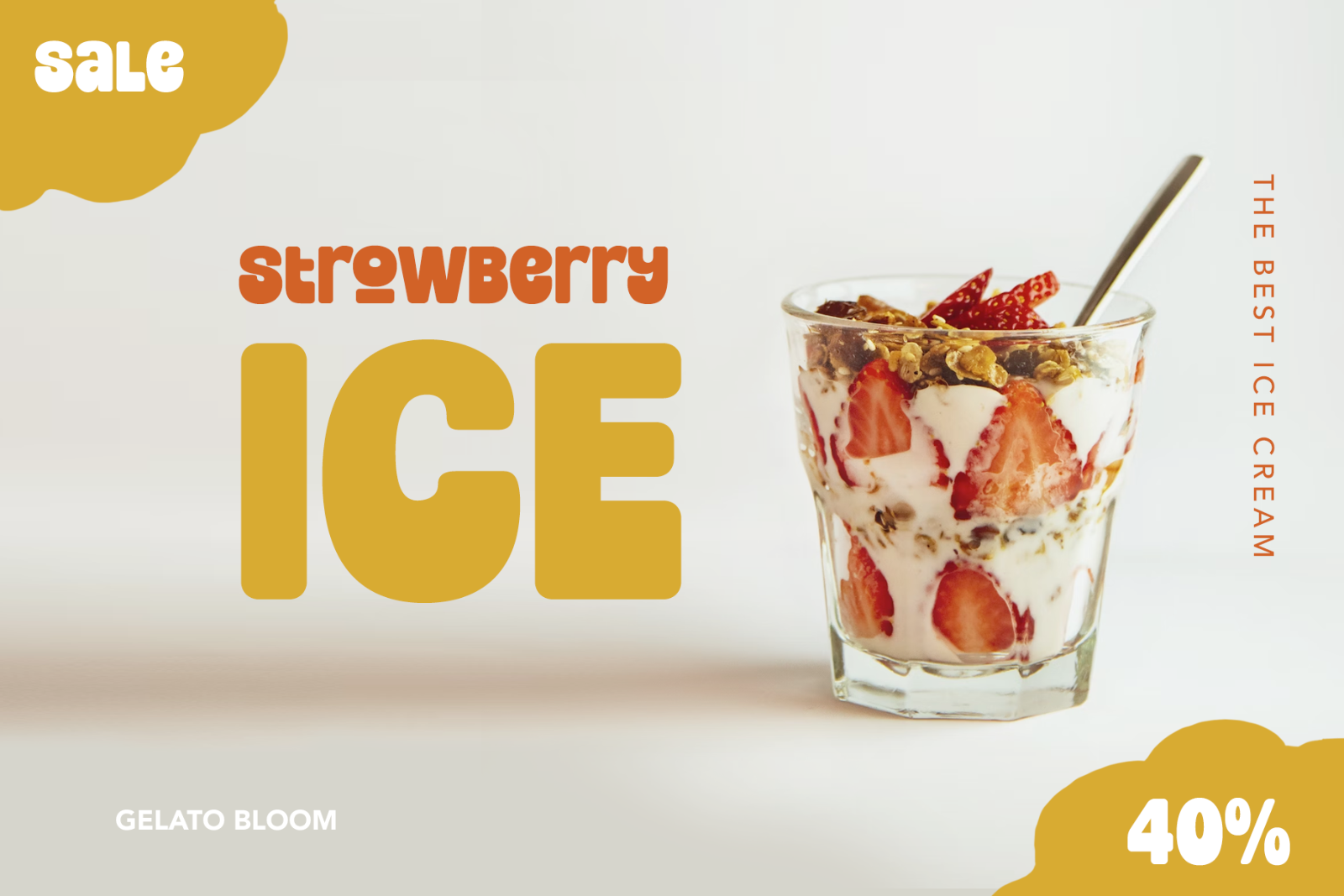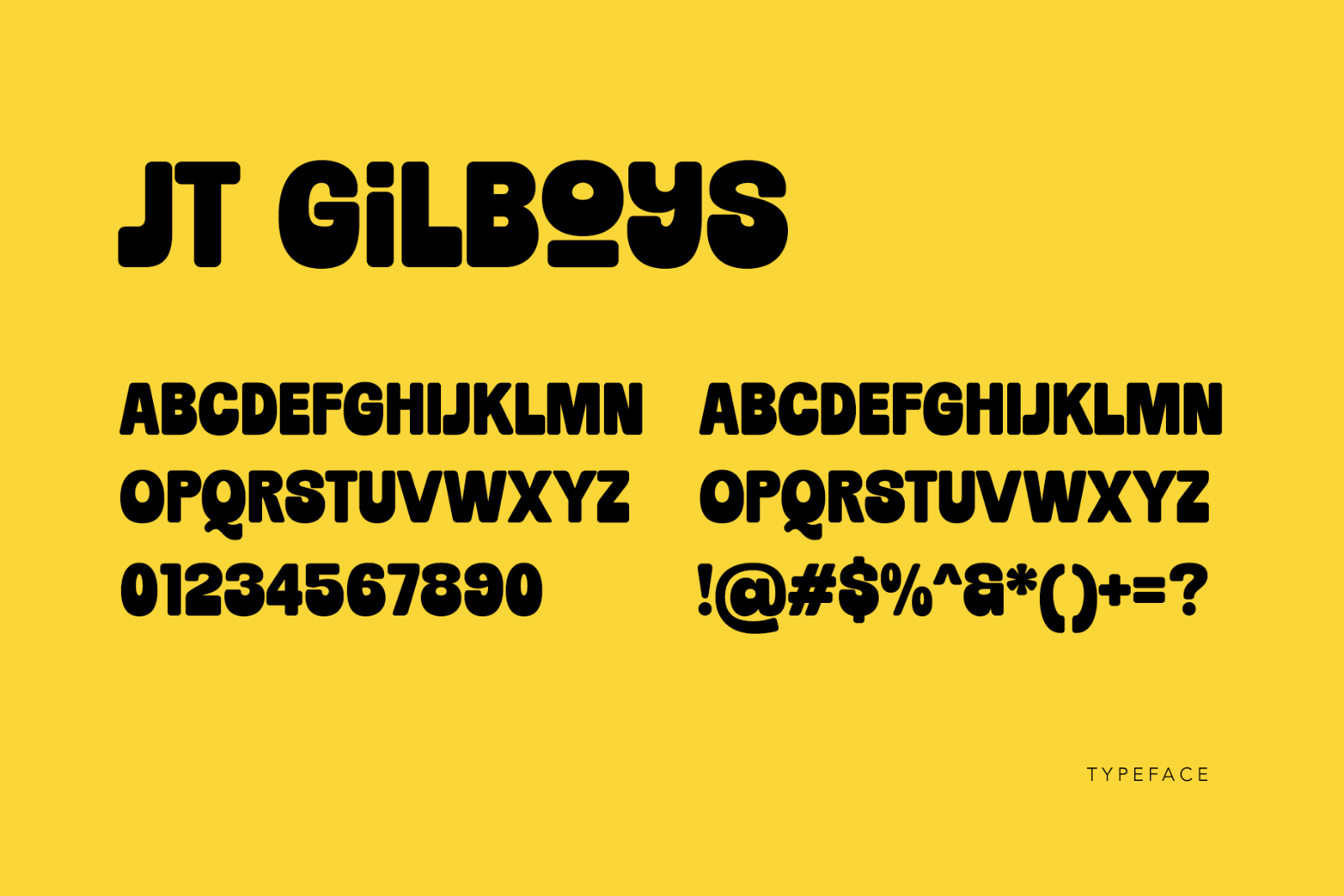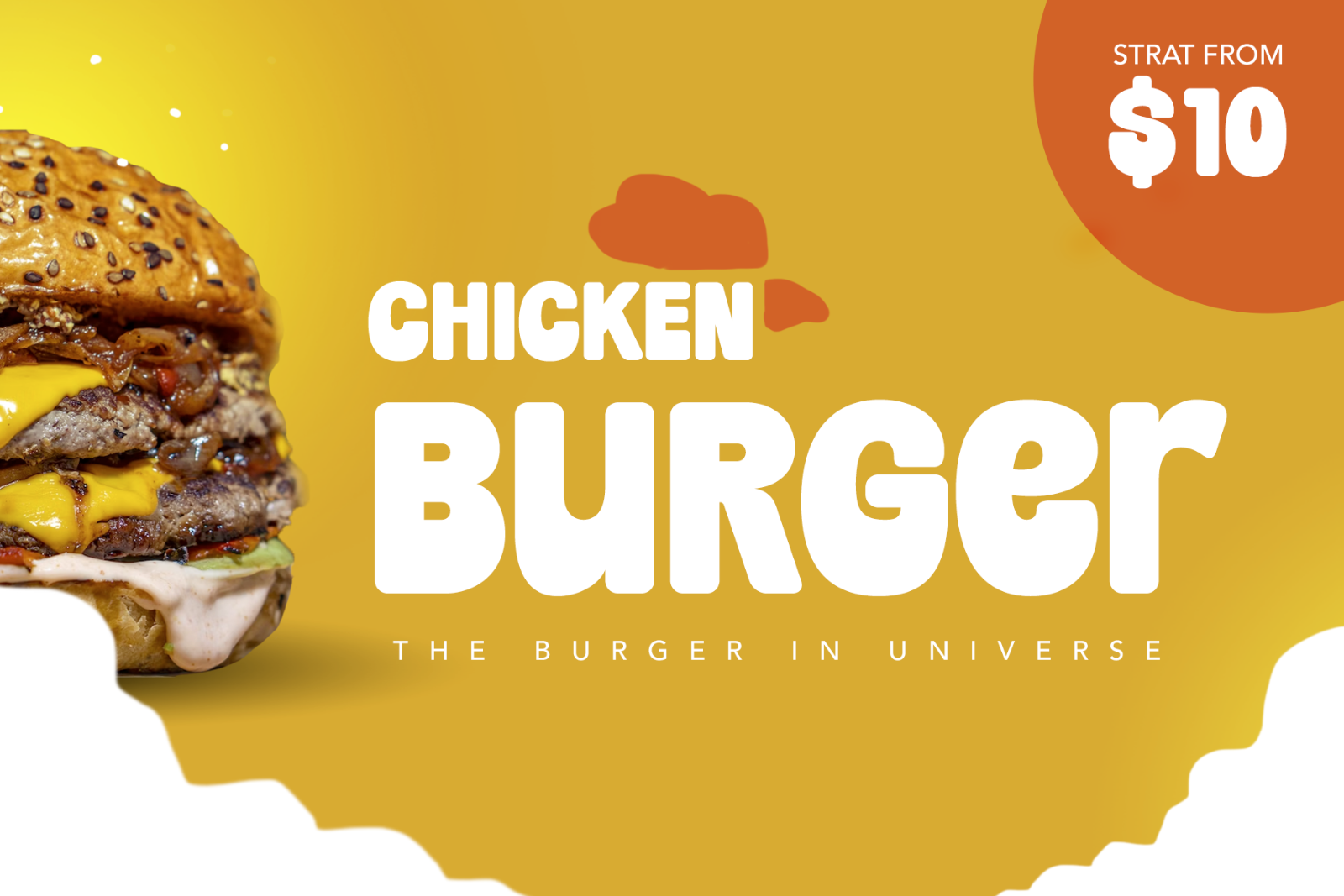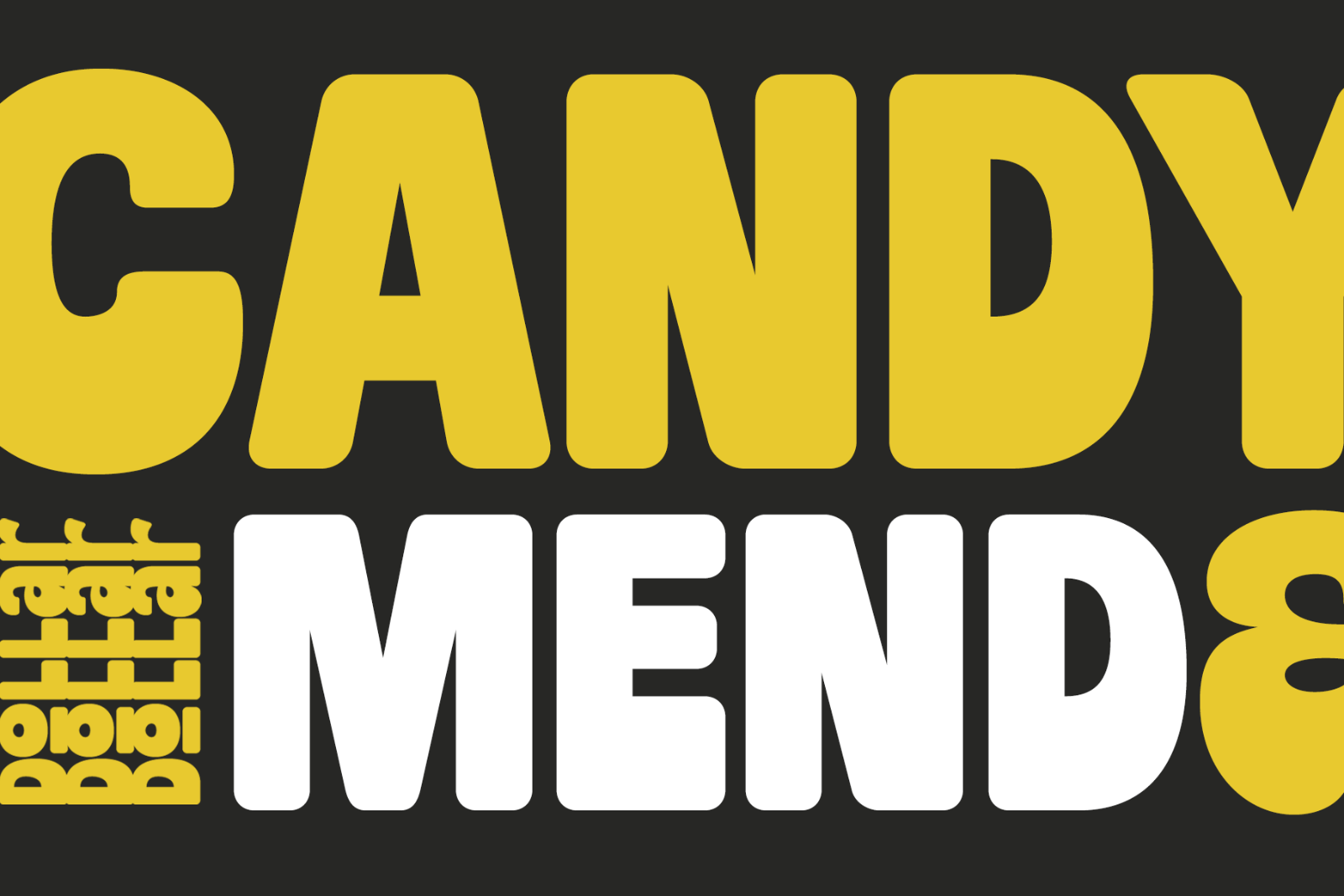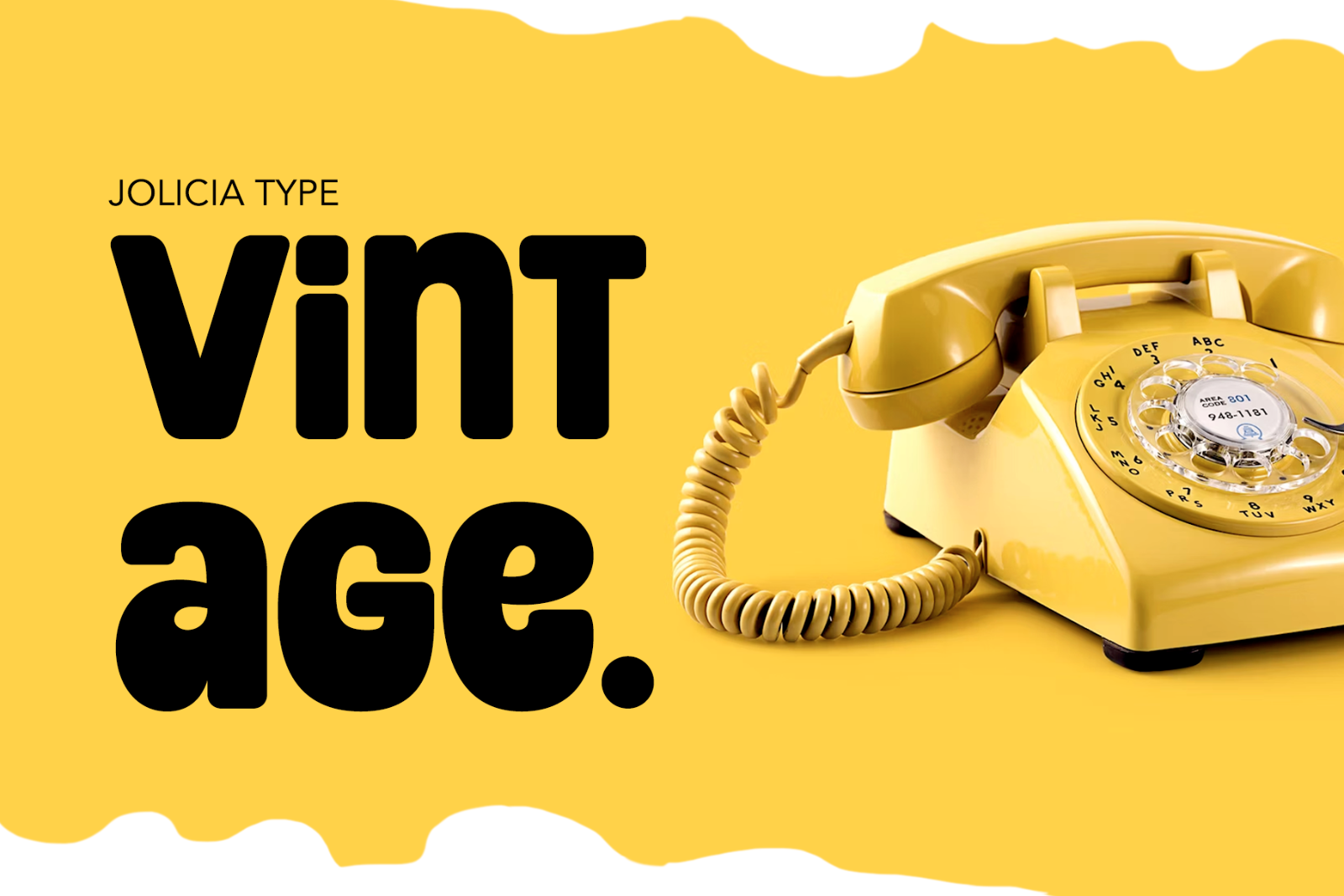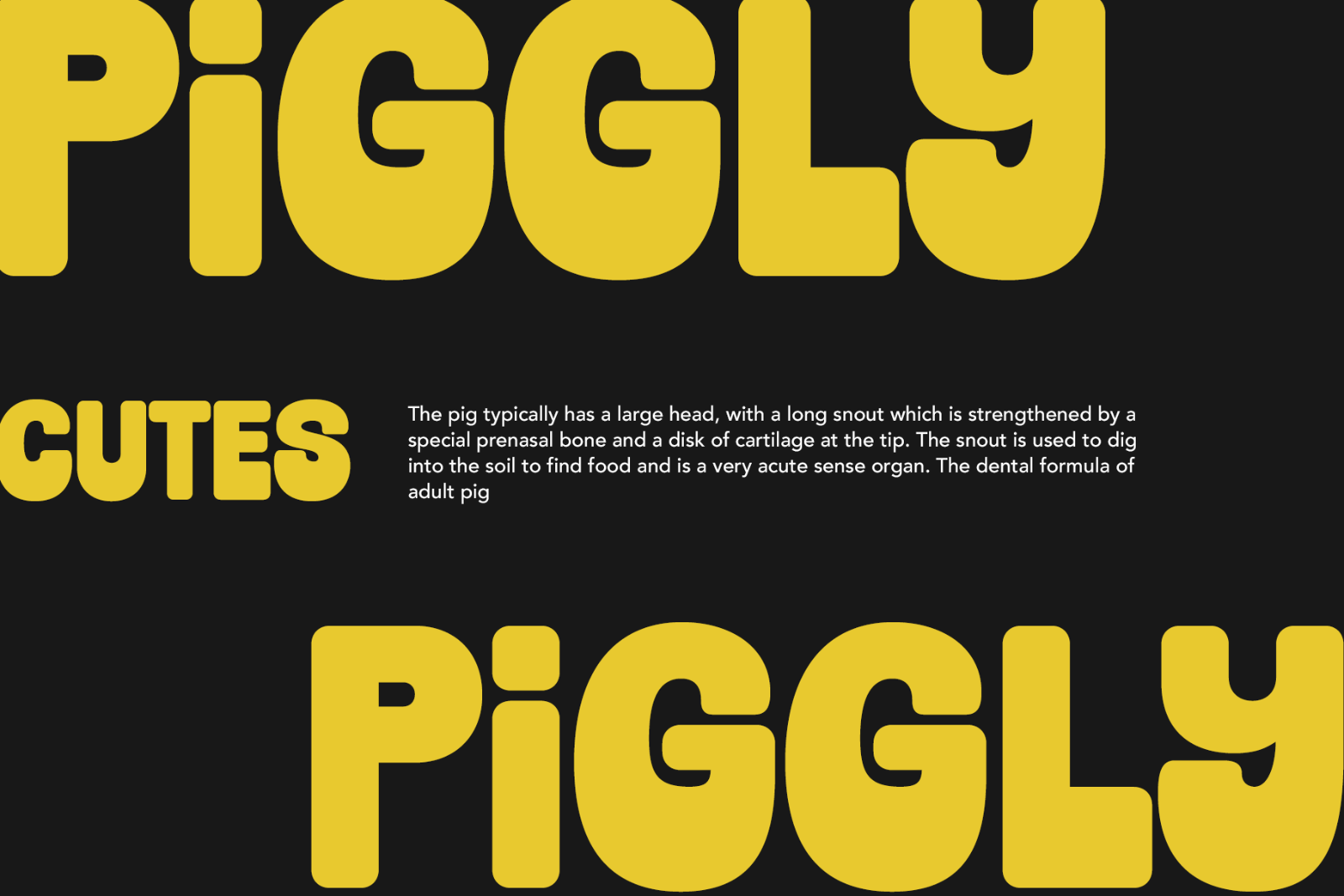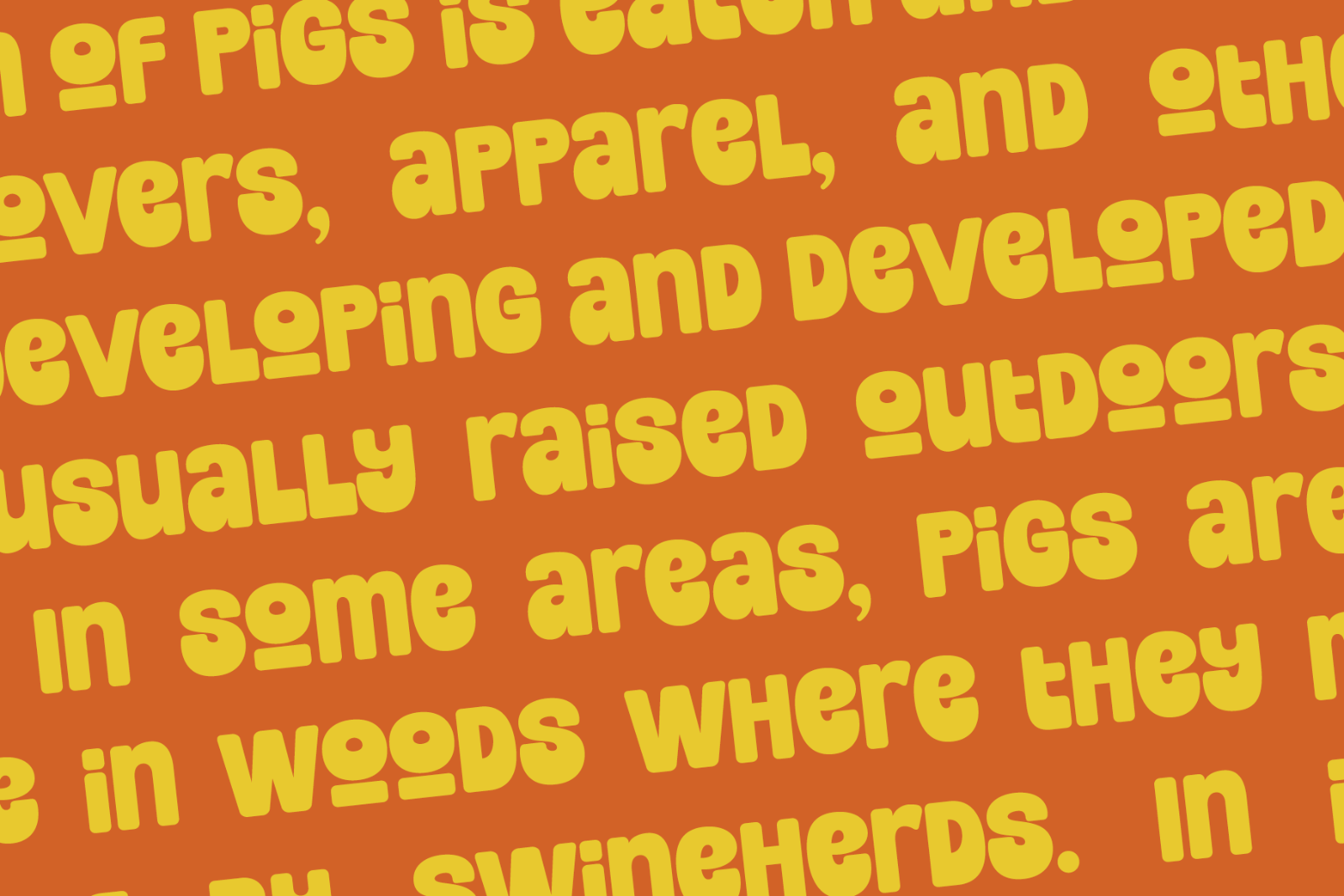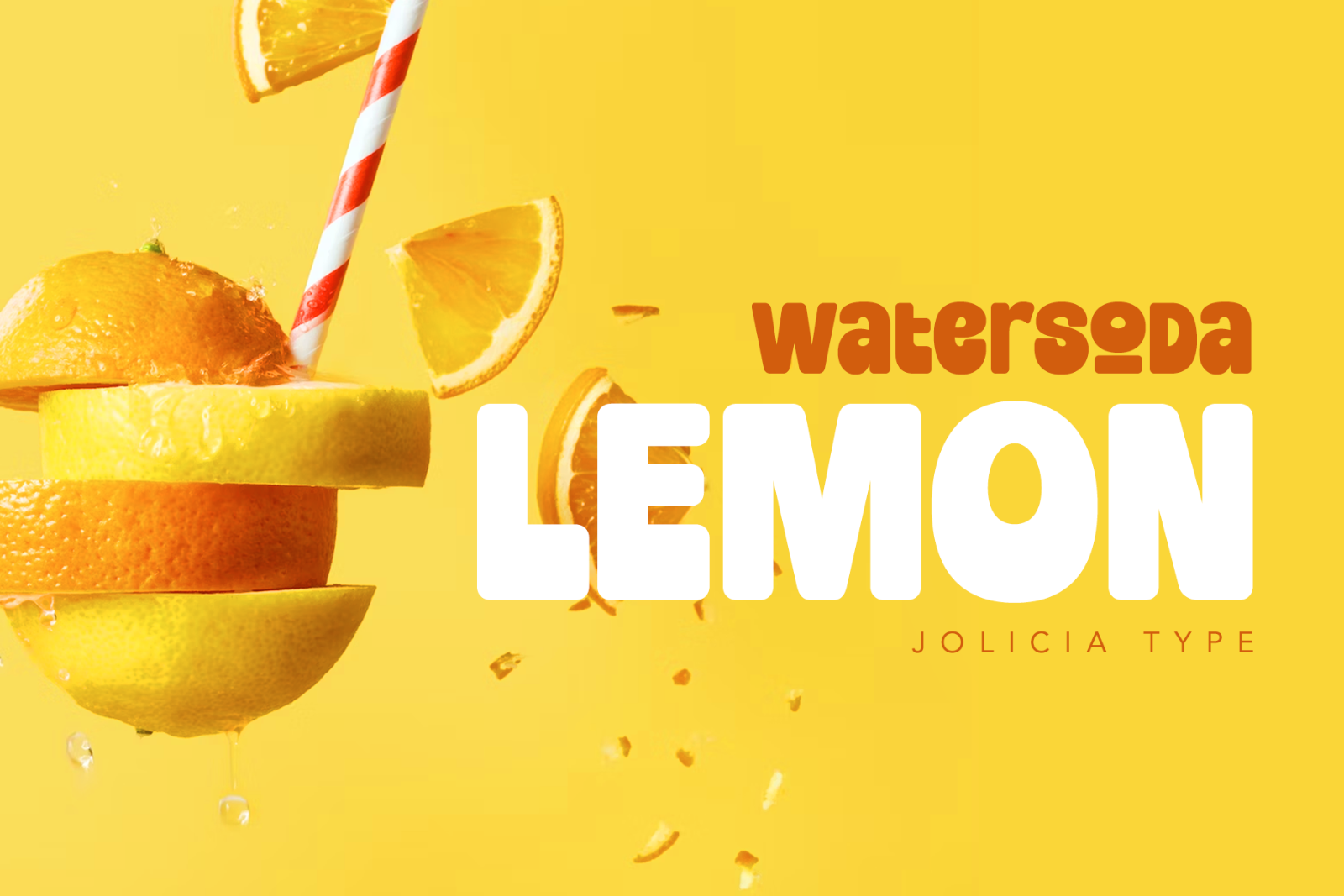
Jt Gilboys Inspired by bold and rounded typefaces.Very characterful, fat and rounded , it is the best choice for editorial, You can use glyphs to create a different appearance for your design.world name or brand design, charismatic shape.